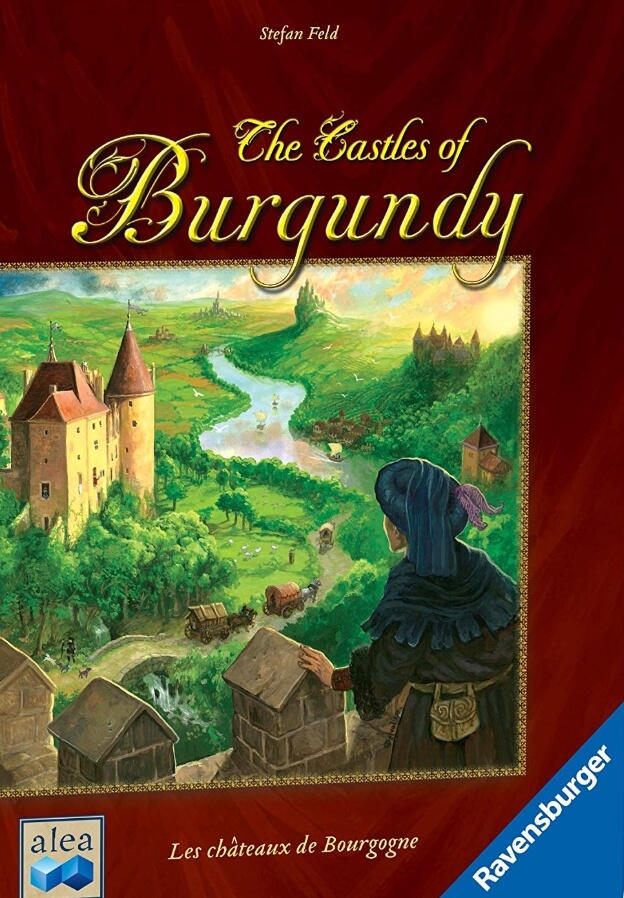
The Castles of Burgundy Font
Fonts in UseThe Castles of Burgundy is a board game created by Stefan Feld that tasks 2-4 players with constructing settlements, gathering resources, and trading goods to gain victory points.
The decorative script used for the game's title is called Fleurie Plus from Wiescher Design, while the smaller text is set in Tribute Italic from Emigre. The Ravensburger logo is in Myriad Semi Extended Bold from Adobe, and the "alea" text has been modified from Frances Uncial from ITC.